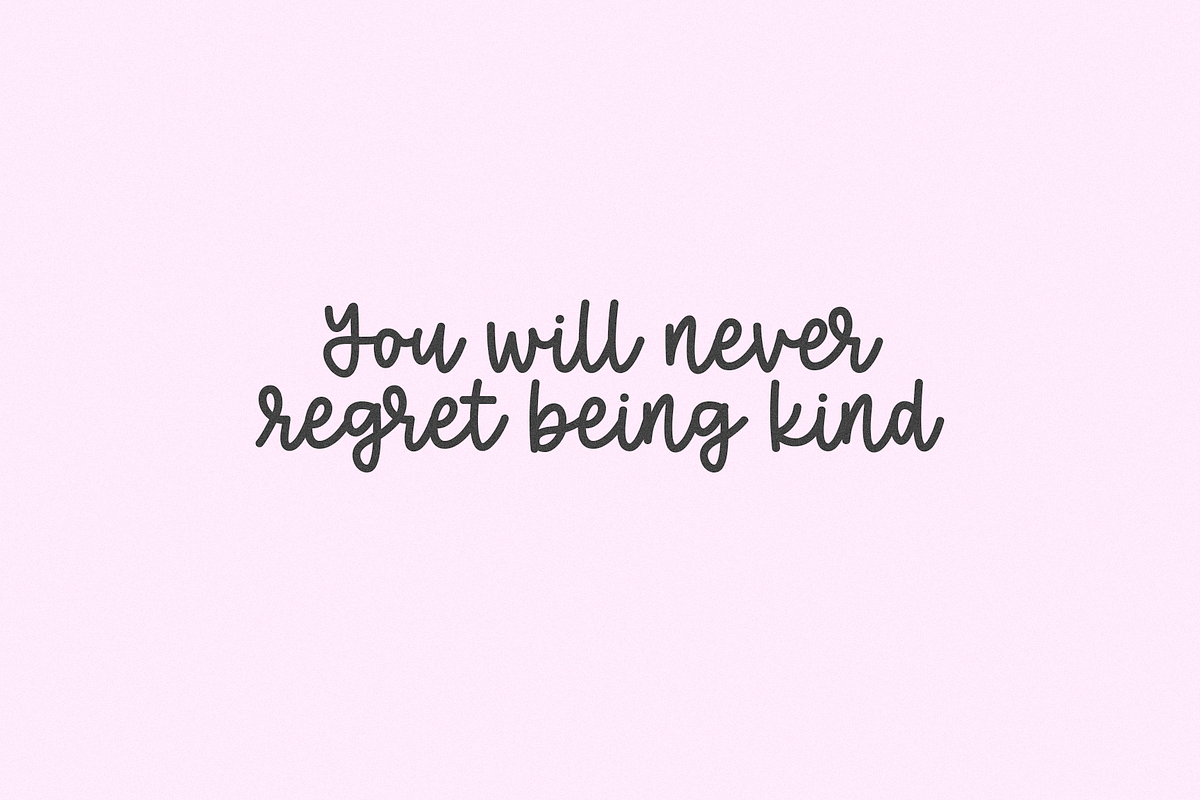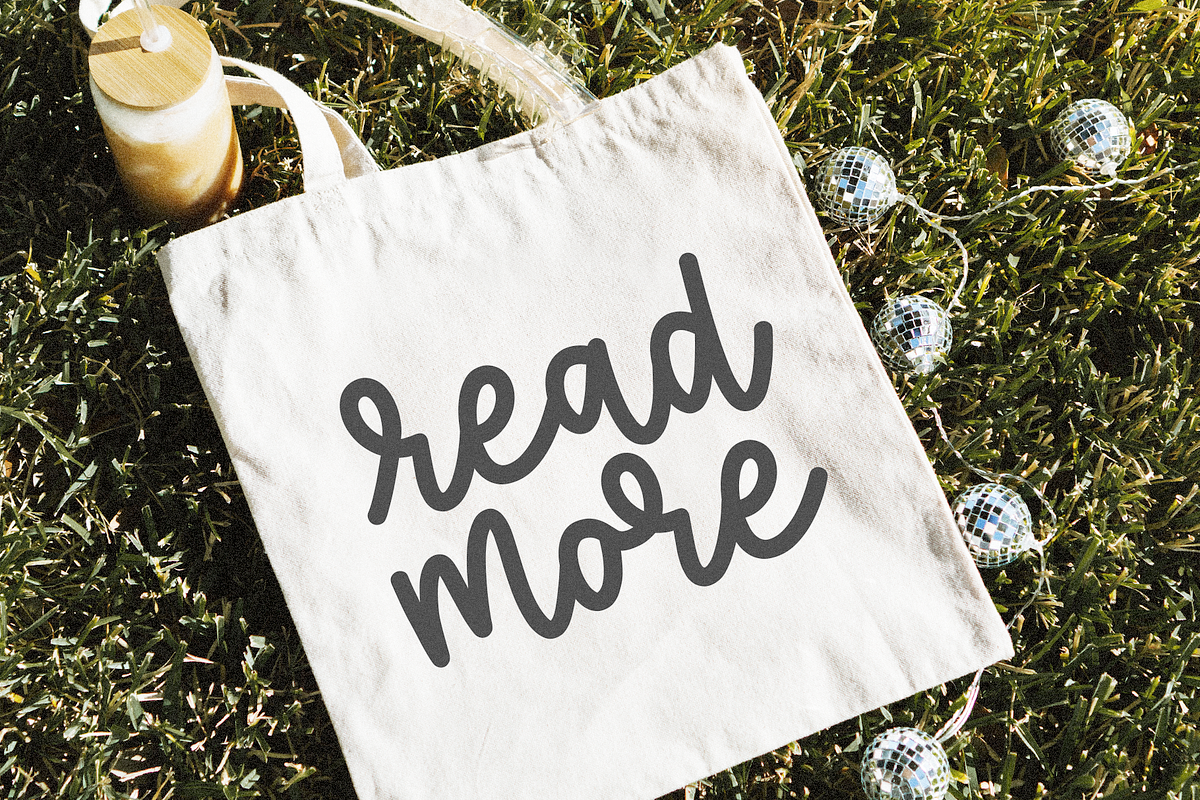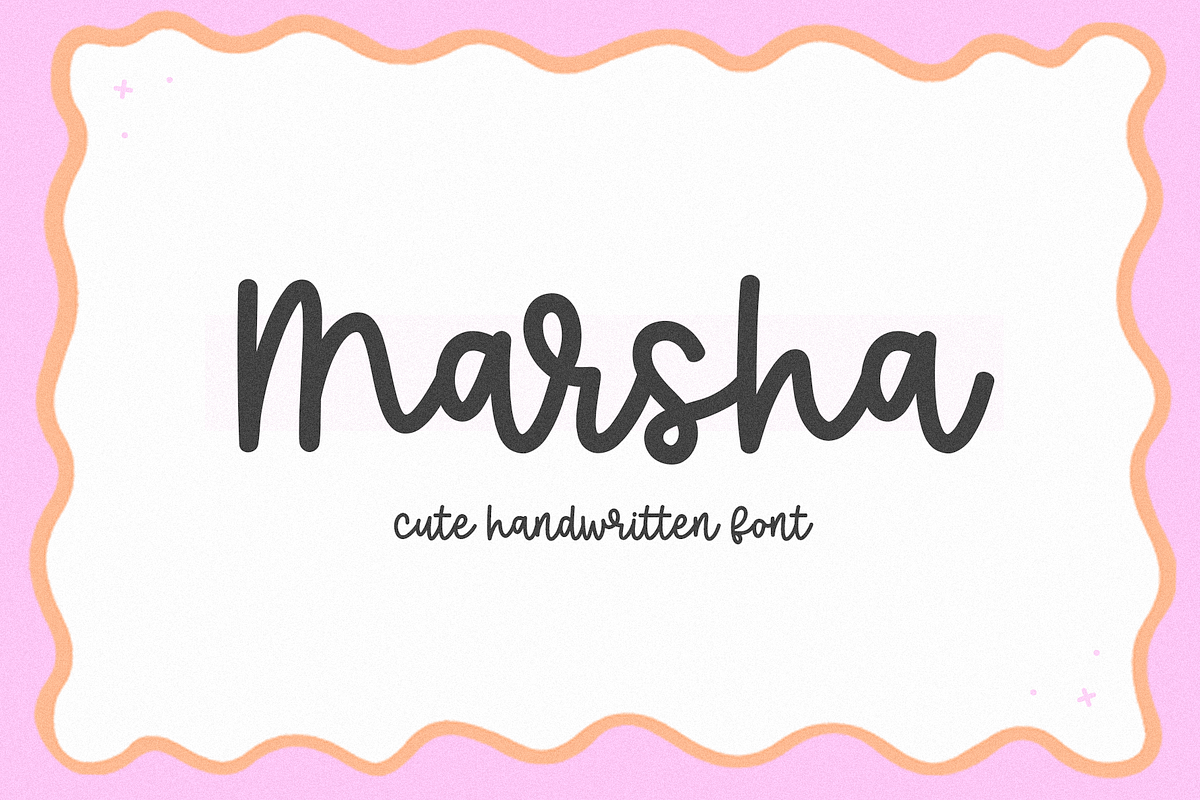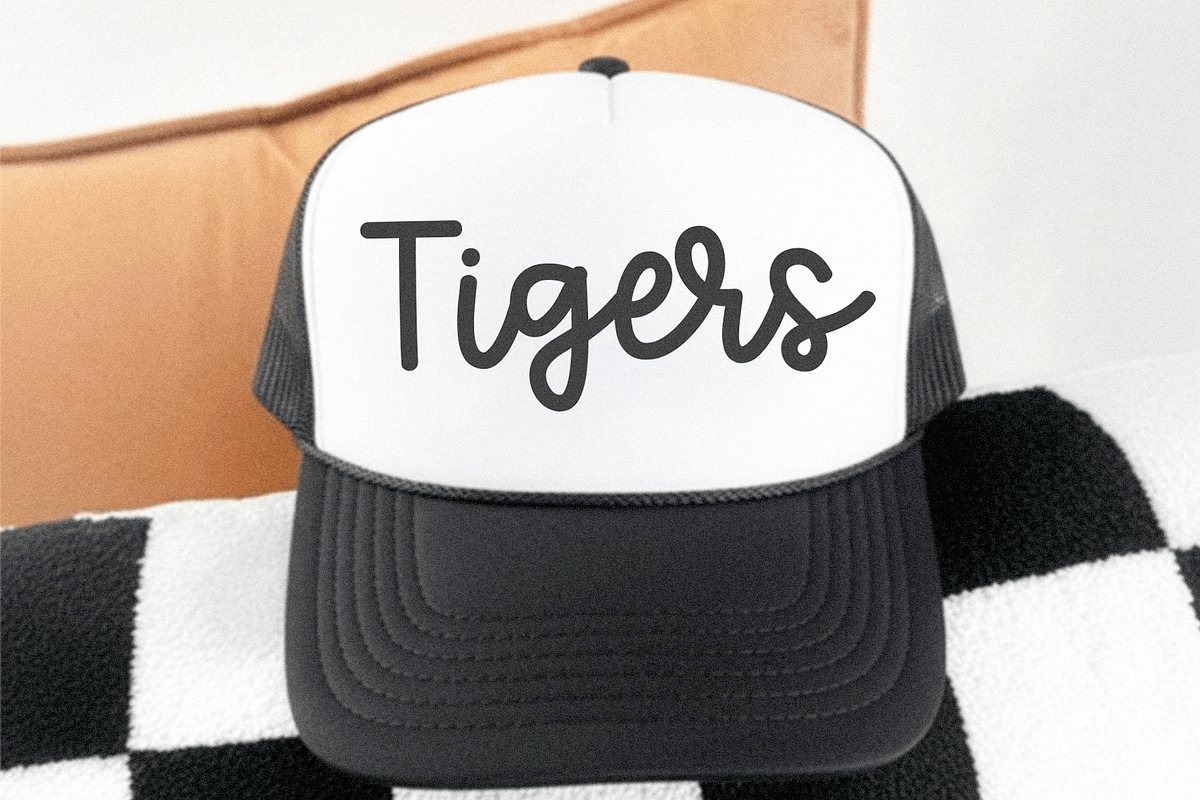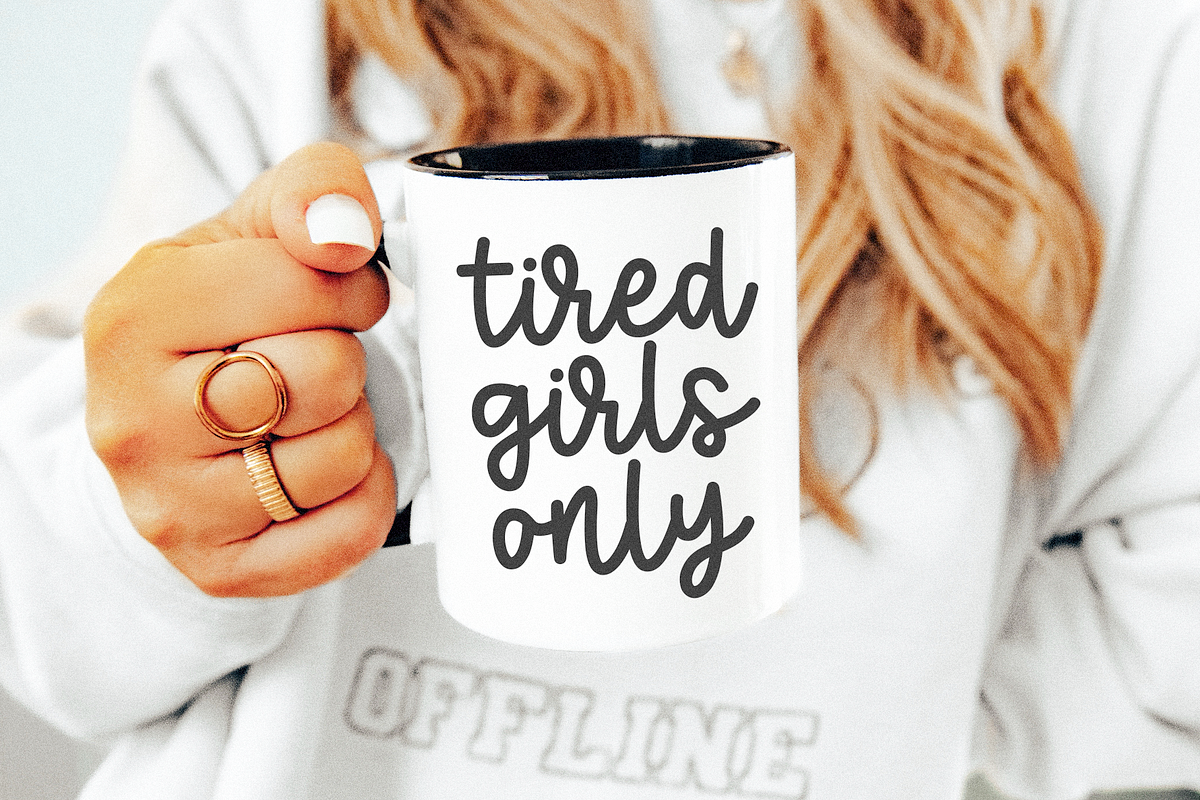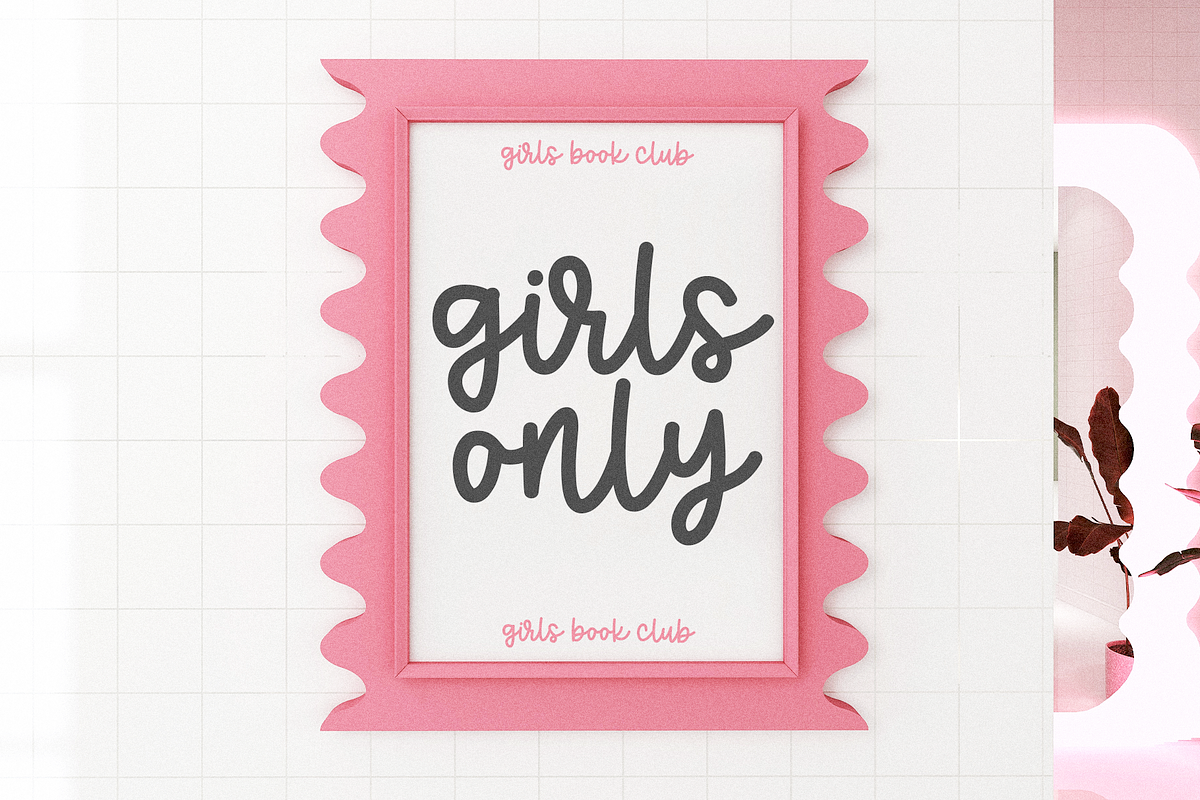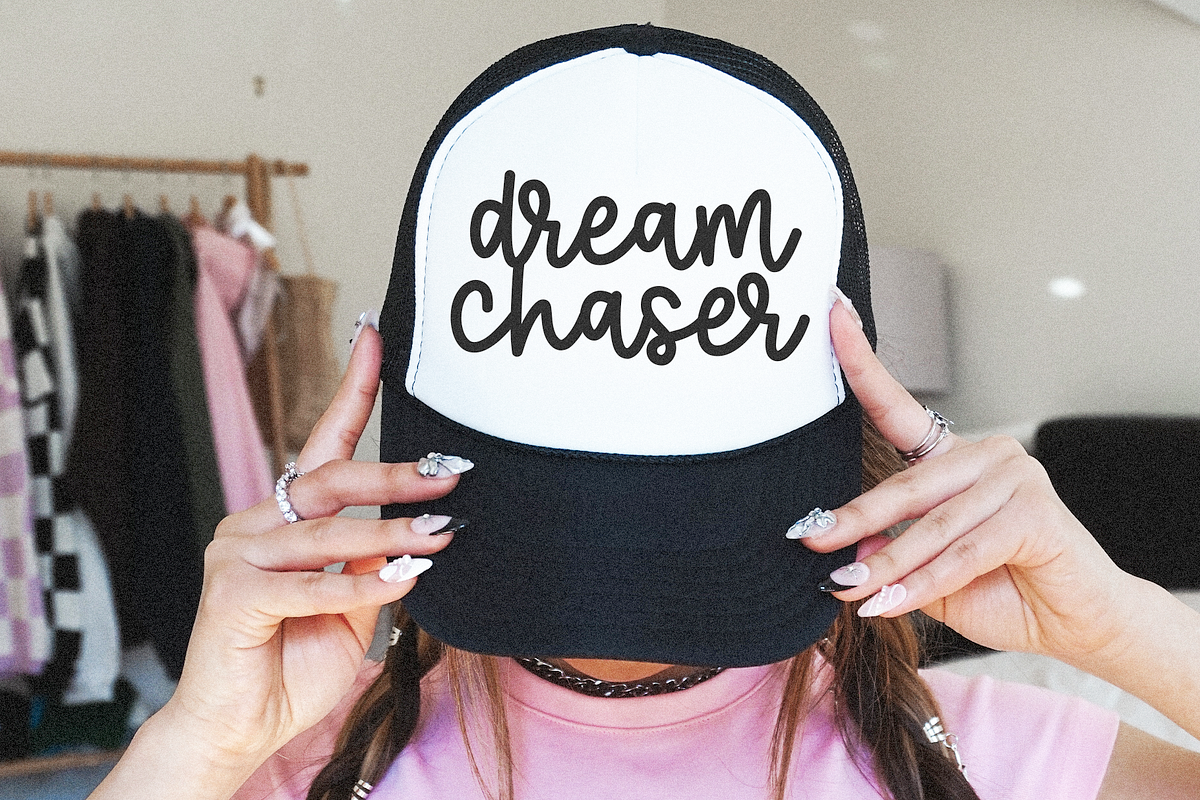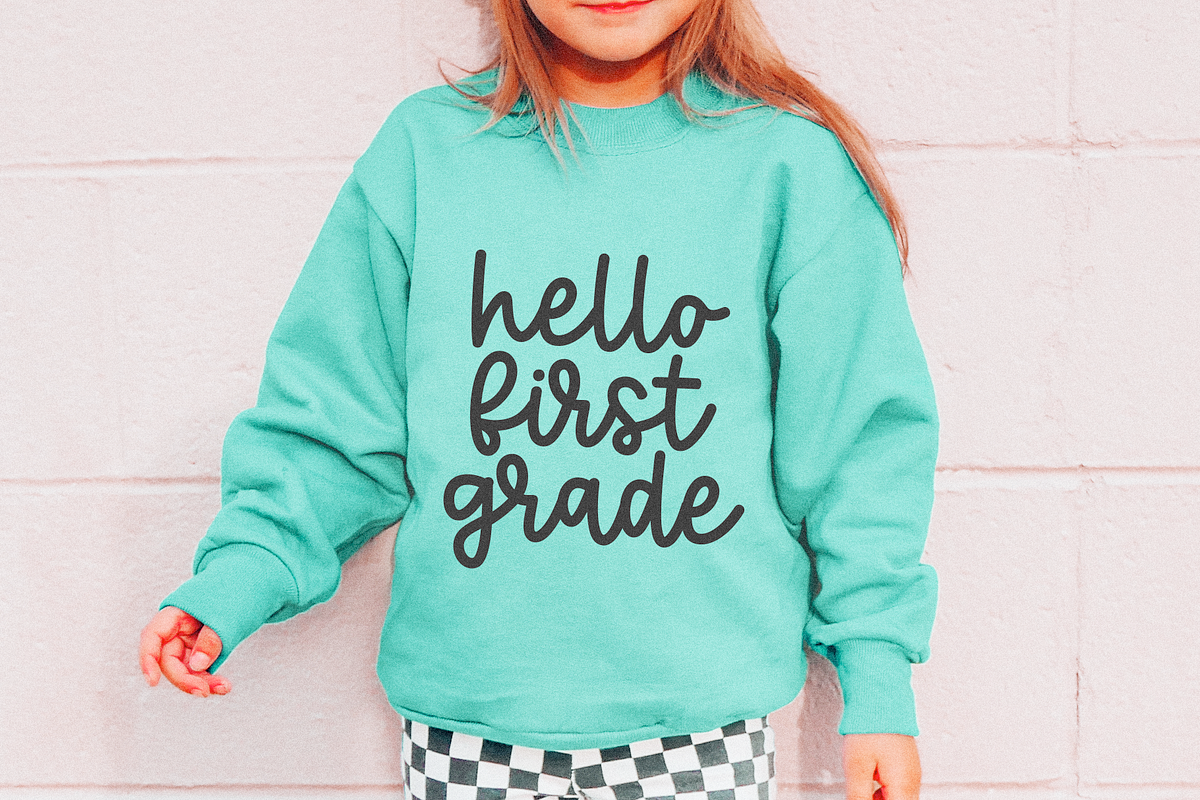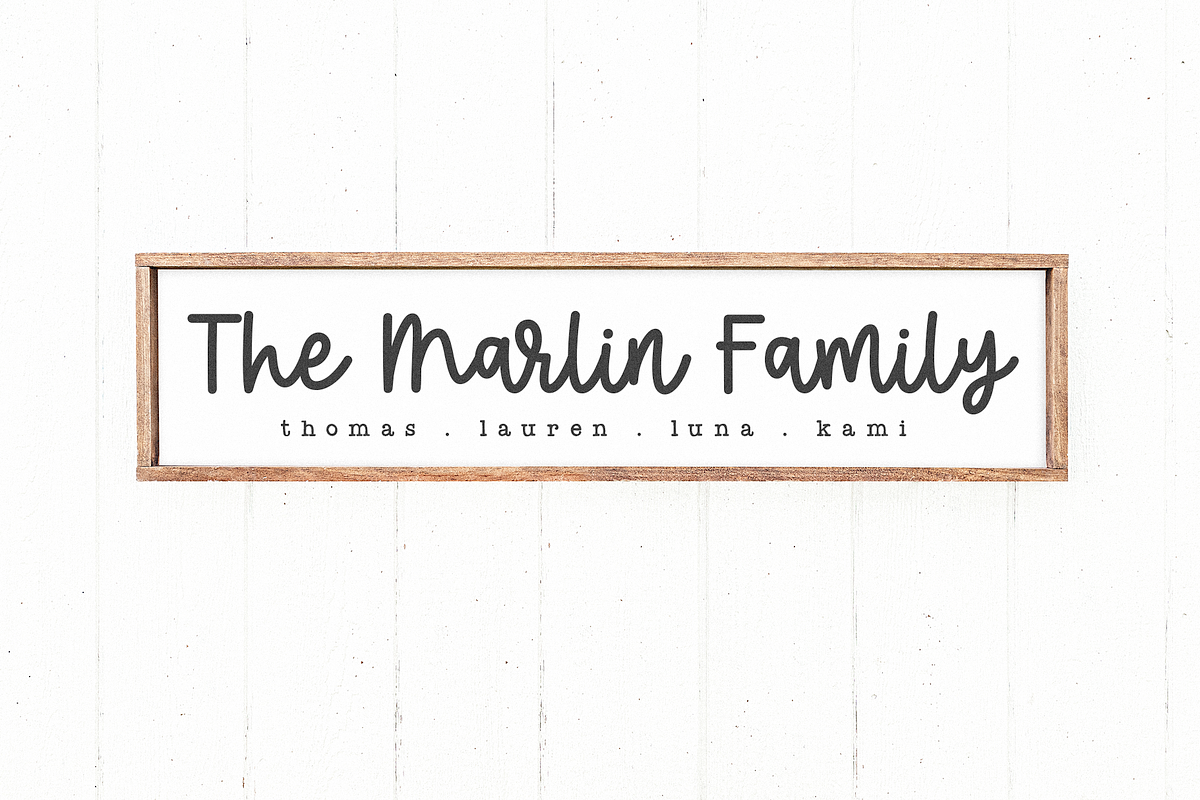
Marsha | Cute Script Font
Marsha is a cute handwritten script font. This font is perfect for cricut projects, canva, logos, shirts, svg files, teachers, painted banners and more! OTF/TTF files only Thank you!